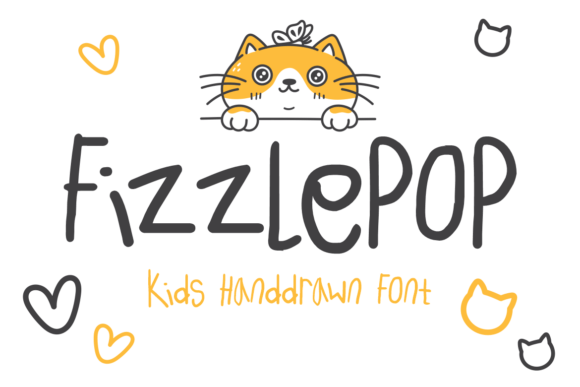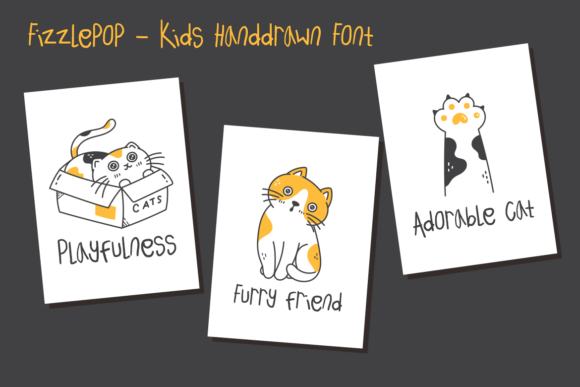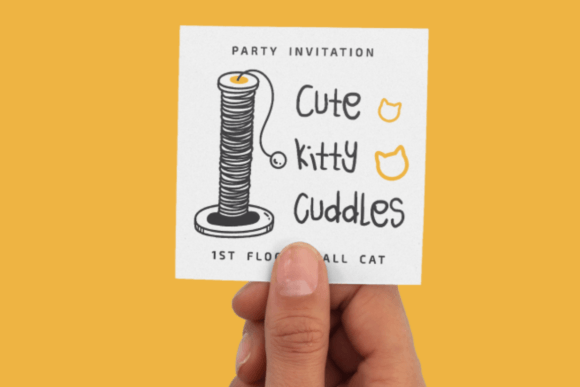
Fizzlepop Font: A Cute Handwritten Font for Kids & Playful DIY Designs
About the Fizzlepop Font
Discover the charm of Fizzlepop Font. This font is a perfect blend of modern aesthetics and classic appeal. Introducing Fizzlepop – Kids Handdrawn Font, a delightful typeface that captures the essence of childhood creativity and whimsy. This bold, playful font is perfect for injecting a dose of fun into any project. With its cute scribble style that mimics children’s handwriting, Fizzlepop adds a personal touch to your designs, making them stand out with its handdrawn charm. Each letter is crafted to look like a unique sketch, embodying the unpredictable and joyful spirit of kids at play. Whether you’re designing logos, crafting invitation cards, or setting up titles for children’s books and movies, Fizzlepop brings an element of joy and authenticity.
Fizzlepop’s versatility makes it suitable for a wide range of applications, from branding projects and packaging design to posters, greeting cards, stickers, book covers, and magazines. Its bold and playful nature ensures your designs will leave a lasting impression. Let Fizzlepop be the voice of your creative endeavors where a touch of heartwarming childishness is needed to connect with your audience. Embrace the fun and vibrant energy of Fizzlepop and watch your projects come alive with character and charm.
Fizzlepop Font Usage Examples
Fizzlepop Font Example